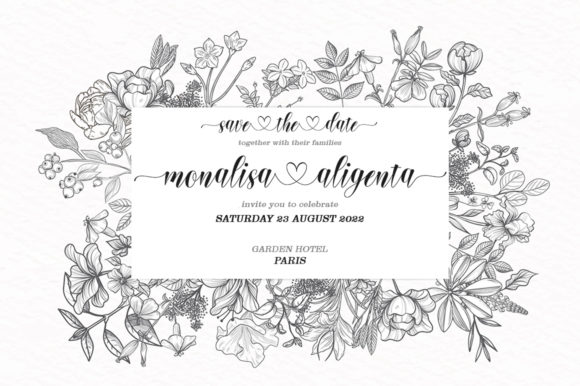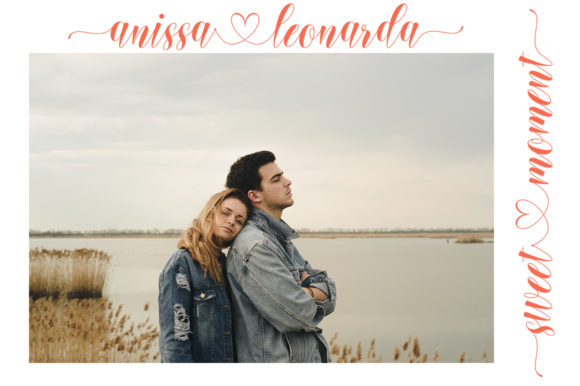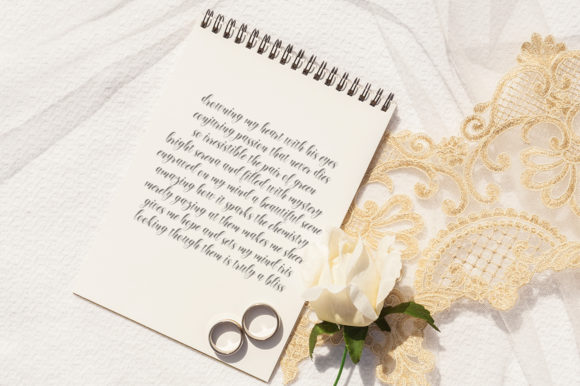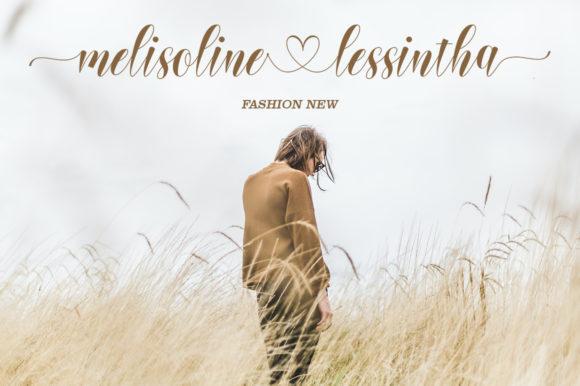
Hello Deline Font
About Hello Deline Font
Hello Deline is a charming and elegant handwritten font that exudes grace and sophistication. Its versatility makes it the perfect choice for a wide range of design projects. Here are some reasons why you’ll love Hello Deline:
1. Charming Appeal: Hello Deline’s charming and captivating style adds a touch of warmth and friendliness to your designs. Its handwritten feel creates a personal and inviting atmosphere.
2. Elegant Flow: The smooth lines and varying baseline of Hello Deline give it an elegant and graceful appearance. Each character flows seamlessly into the next, creating a harmonious and beautiful visual flow.
3. Stunning Glyphs: The carefully crafted glyphs in Hello Deline are visually stunning and eye-catching. Each character is a work of art, contributing to the font’s overall appeal.
4. Versatile Usage: Hello Deline is a versatile font that complements various design projects, including wedding invitations, thank you cards, quotes, logos, and business cards. Its adaptability makes it a go-to choice for any occasion.
5. PUA Encoded: With PUA encoding, accessing all the glyphs and swashes in Hello Deline is easy and convenient. It allows you to add unique and decorative elements to your designs effortlessly.
6. Timeless Appeal: Hello Deline’s classic and elegant style gives your projects a timeless quality. It ensures that your designs remain relevant and attractive for years to come.
7. Expressive Alternates: The stunning alternates in Hello Deline add an extra layer of expressiveness to your designs. They offer creative possibilities for letter combinations and personalized touches.
8. Professional Look: Despite its handwritten nature, Hello Deline retains a professional and polished appearance. It enhances the overall look and feel of your designs, making them stand out.
9. Endless Creativity: Hello Deline’s charming and flowing nature allows for endless creative possibilities. You can experiment with different layouts and design elements to create unique and captivating visuals.
10. Inviting and Warm: Hello Deline’s friendly and inviting style creates an emotional connection with your audience. It adds a sense of warmth and approachability to your designs.
Embrace the charm and elegance of Hello Deline to create stunning and heartfelt designs. Its versatile and timeless appeal, combined with its expressive alternates, allows you to craft beautiful and engaging projects for any occasion. Whether it’s wedding invitations or thank you cards, Hello Deline brings a touch of elegance and grace to all your designs. Let Hello Deline be your go-to font for adding a handwritten and personal touch to your creative ideas.